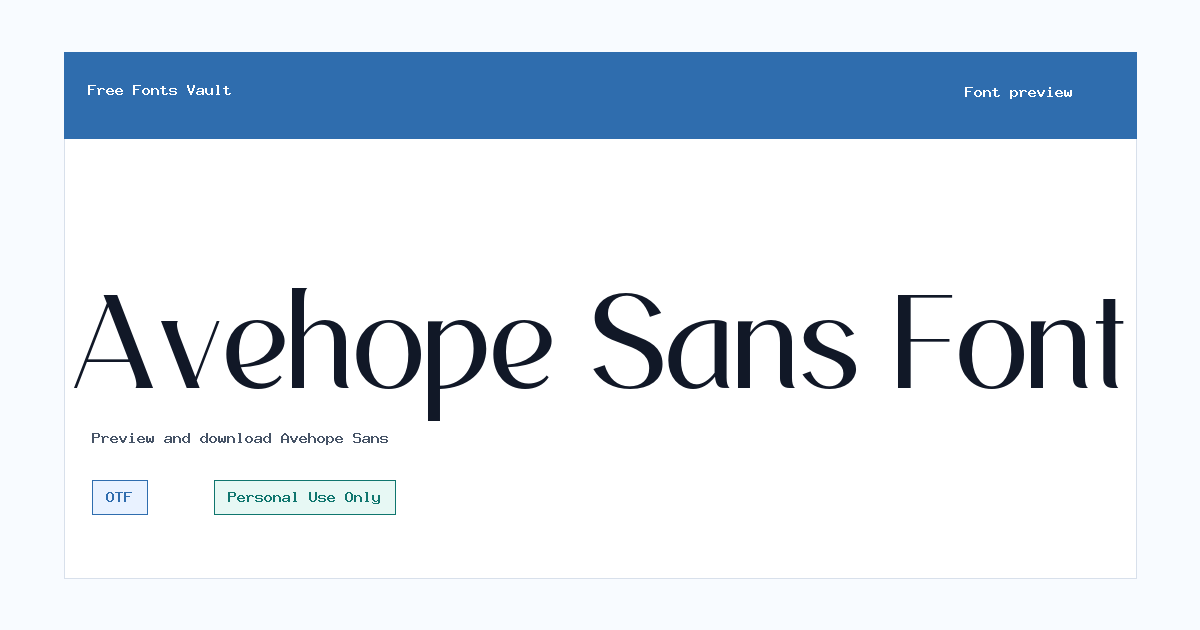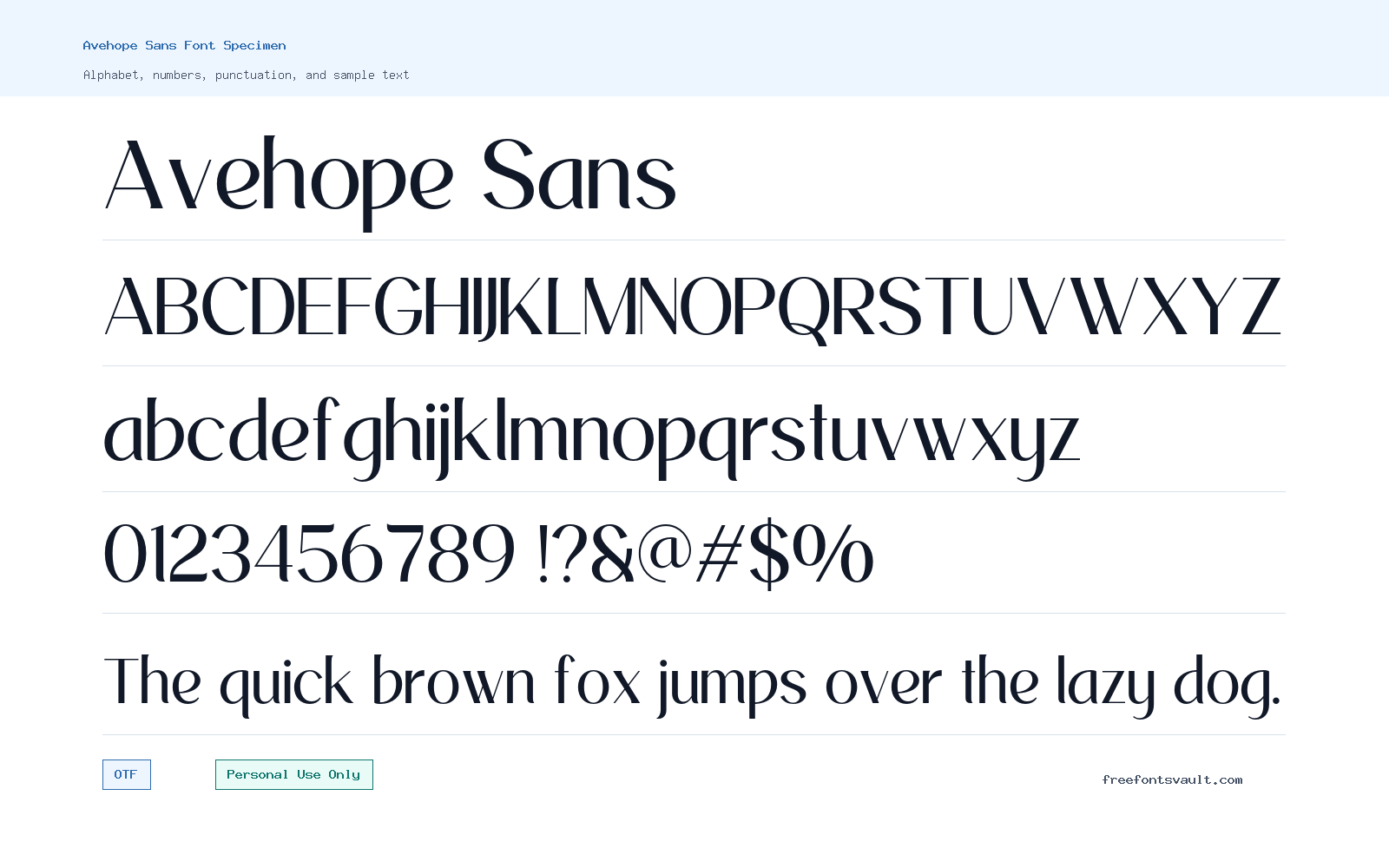
Avehope Sans
Avehope Sans is a personal-use sans serif font designed by Bakhrudin Ja'far. It is a good font to test when you need a clean letter style for short display text, mockups, titles, and design experiments.
About Avehope Sans
Avehope Sans comes as a regular OTF font file, making it easy to install on most desktop design systems. As a sans serif, it is best approached as a clean, straightforward type choice rather than a decorative script or display-only novelty font. Use the live preview to check its spacing, letter shapes, punctuation, and number style before downloading, especially if your design depends on tight headlines or mixed-case words.
This font is most useful for personal projects where you want simple, readable lettering without adding too much visual noise. Try it in poster drafts, social graphics, mood boards, logo concepts, website mockups, and presentation titles. For longer paragraphs, test several lines at the size you plan to use; many demo or display-oriented fonts look strongest in short text but may need careful spacing for body copy. Pair it with a more neutral serif or a familiar system sans if you want contrast while keeping the layout easy to read.
- Sans serif style suited to clean headings, mockups, and short text layouts
- Personal poster, banner, and social media design concepts
- Headlines, title text, branding drafts, and presentation mockups
What kind of font is Avehope Sans?
Avehope Sans is presented as a sans serif font. It is a practical choice to test for clean titles, display text, mockups, and personal design layouts.
Who designed Avehope Sans?
Avehope Sans is credited to Bakhrudin Ja'far.
Should I use Avehope Sans for long paragraphs?
Test it first at the exact size and line spacing you plan to use. Sans serif fonts can work well for text, but some demo fonts are stronger in short headings than in long reading passages.